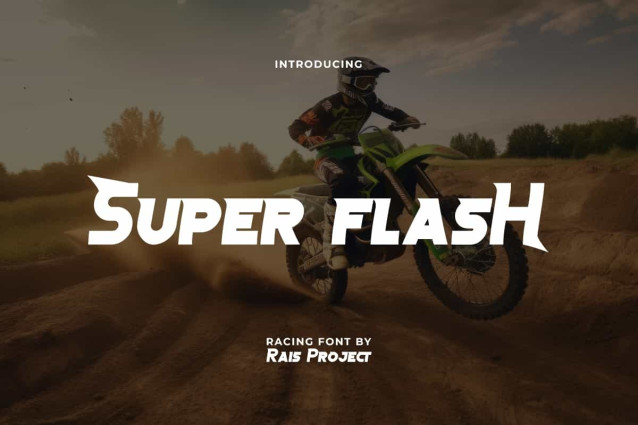
Super Flash Font
Super Flash Font is a sharp and unique display font with racing style, created by RaisProject. This font is perfect for automotive designs because of its style that symbolizes speed. It will be good for any designs, such as custom design, product packaging, quotes, poster, signage, brand image, advertisement, invitation, label, marketing material, stationery, website page, and more!
Super Flash Font includes a full set of ALL CAPS for Uppercase and Lowercase Letters, Numerals, large range of Punctuation, and Alternate character. This bold font will be suitable for various industries, such as automotive, sports, fashion, game, barber shop, cafe, event or festival, photography, printing, publishing, etc.